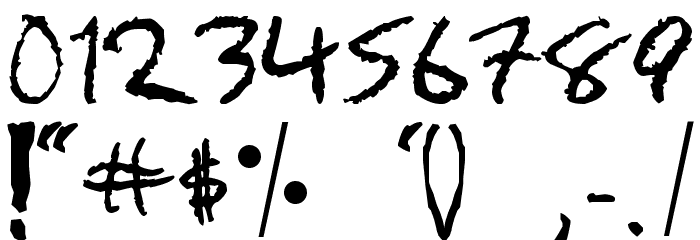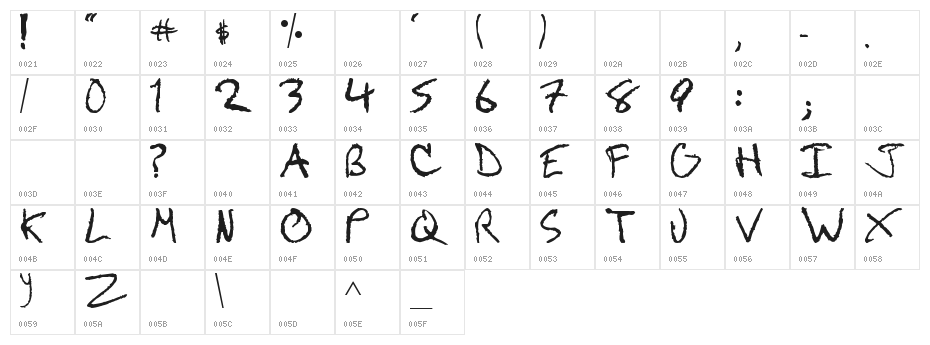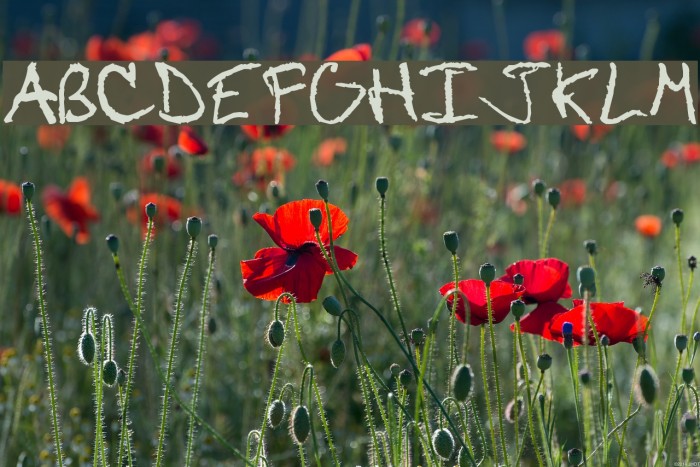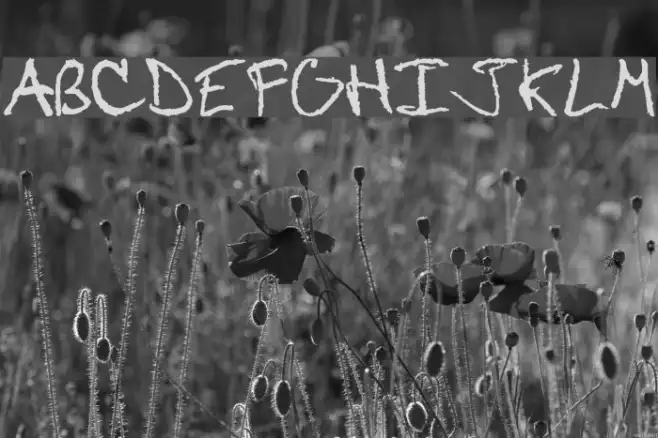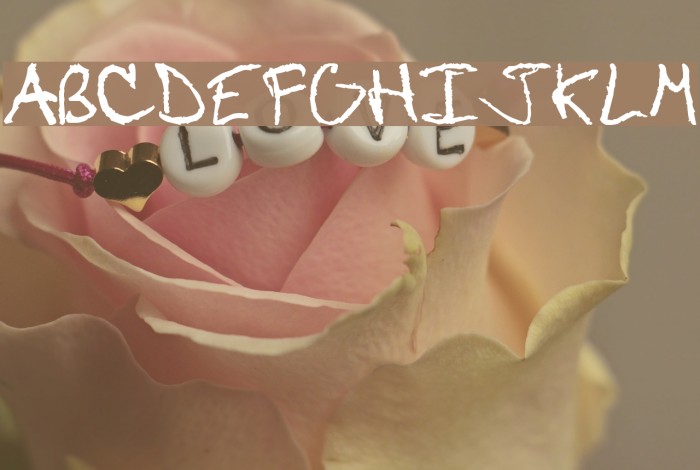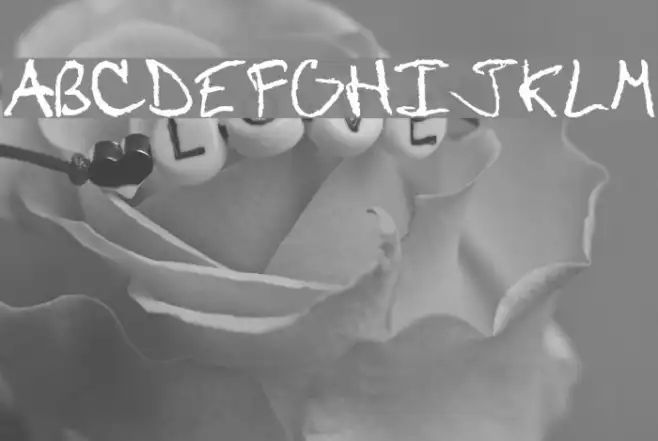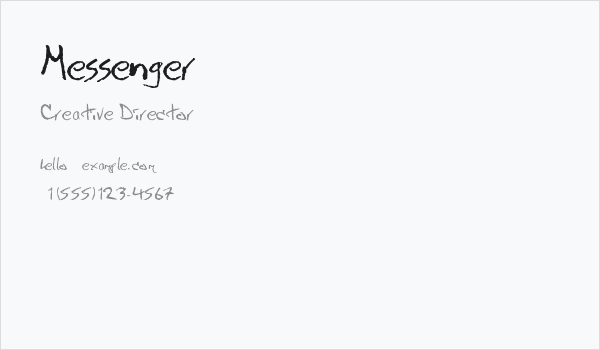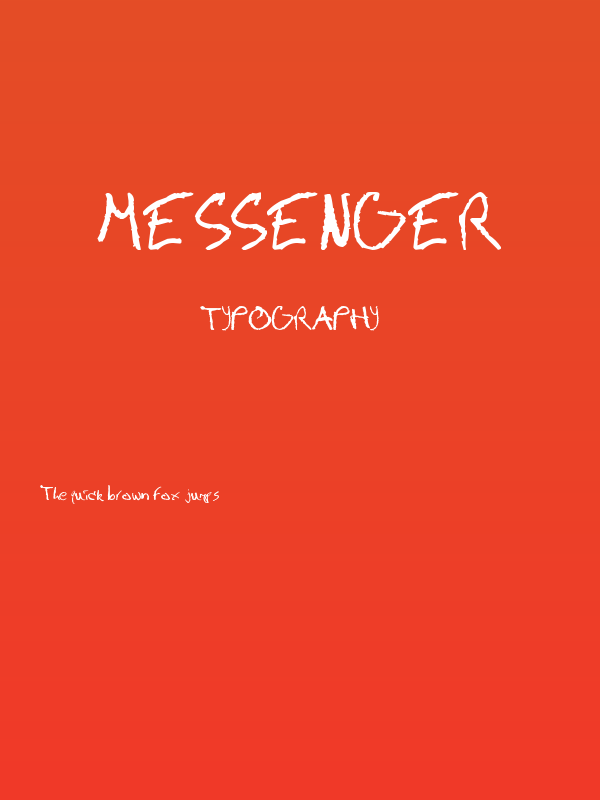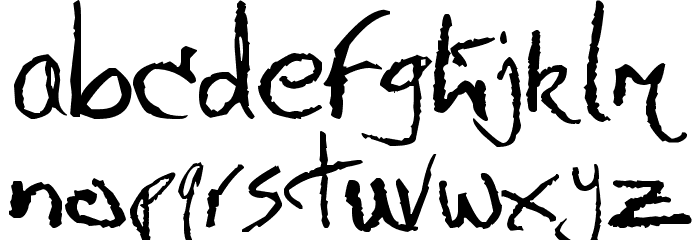
Messenger Font
Messenger Description
This font features a dynamic and expressive handwritten style, characterized by its irregular strokes and playful appearance. The letters exhibit a natural flow, with varying thickness that adds a sense of movement and energy. The uppercase and lowercase letters maintain a consistent style, while the numerals and special characters complement the overall aesthetic. The font's rough edges and spontaneous look give it a casual, artistic feel, making it suitable for projects that require a personal touch or a creative flair.